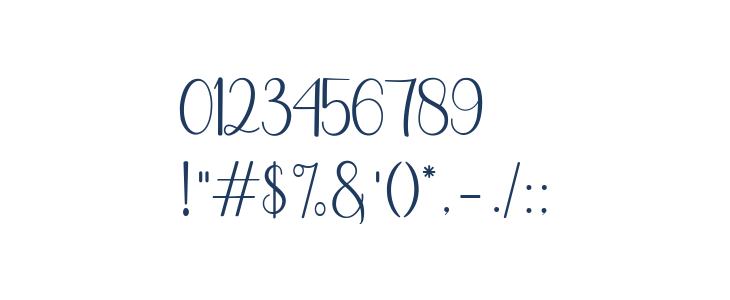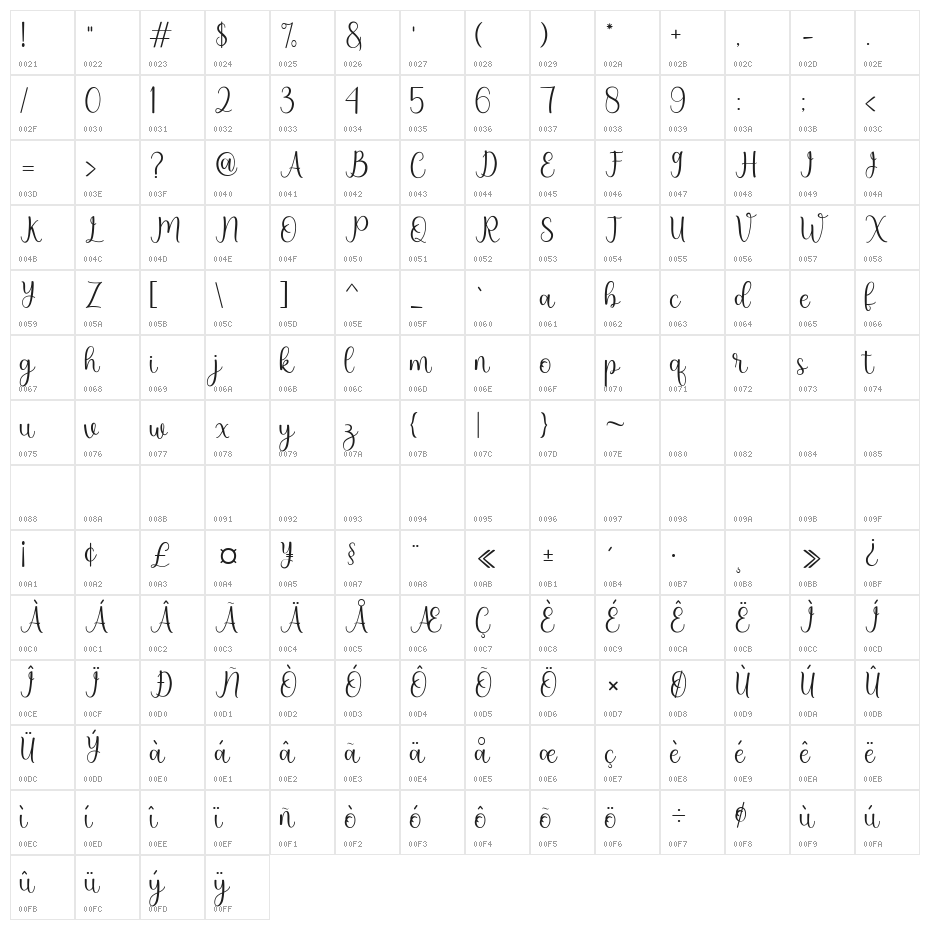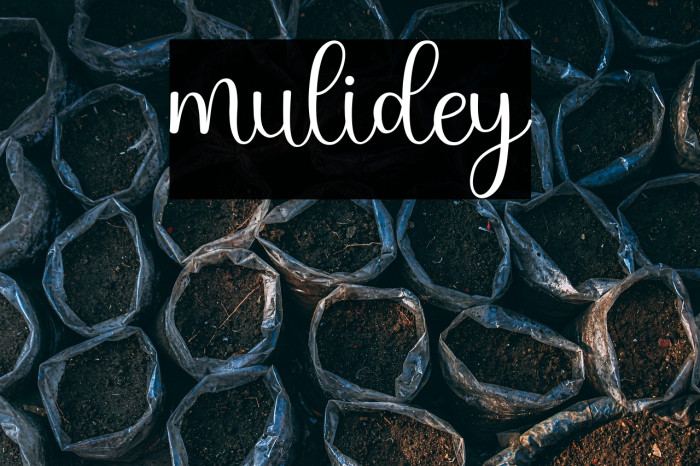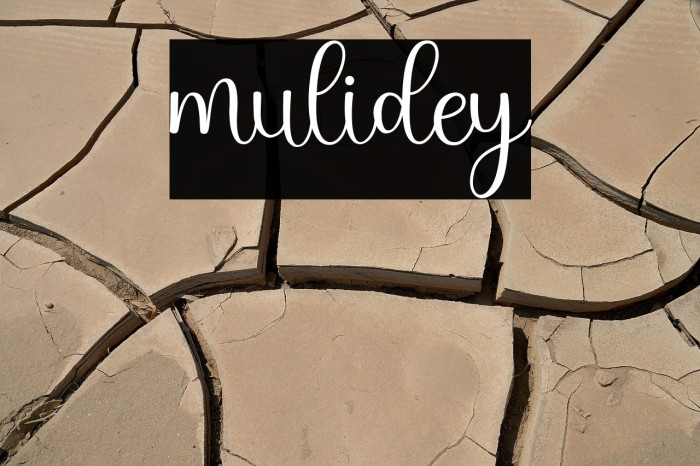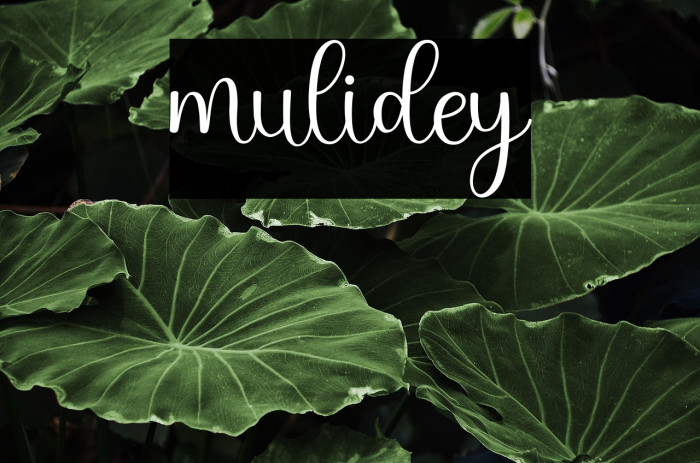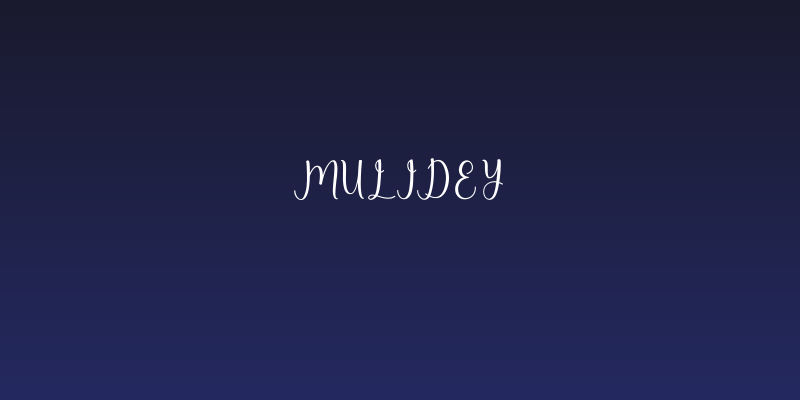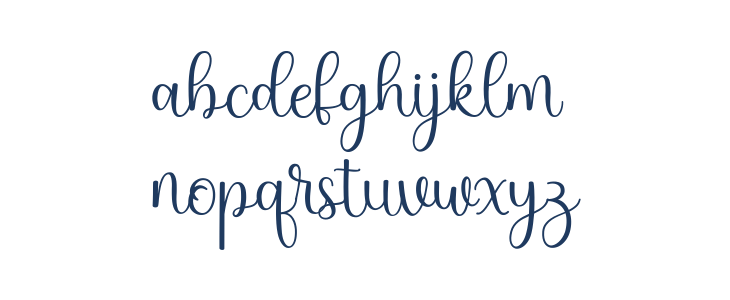
mulidey Font
mulidey Description
This font features a playful and elegant script style with a handwritten appearance. The uppercase letters are characterized by smooth, flowing curves and a slight slant, giving them a whimsical yet sophisticated look. The lowercase letters maintain a consistent style, with some letters featuring unique loops and swirls that add to the font's charm. The numerals are clear and easy to read, following the same elegant script style. Special characters are designed to match the overall aesthetic, ensuring a cohesive look across all text. This font is perfect for adding a personal touch to any project, combining readability with artistic flair.
| Use Case | Logos, Invitations, Social media graphics |
| Proposed Projects | Ideal for wedding invitations, greeting cards, branding, and social media graphics. |